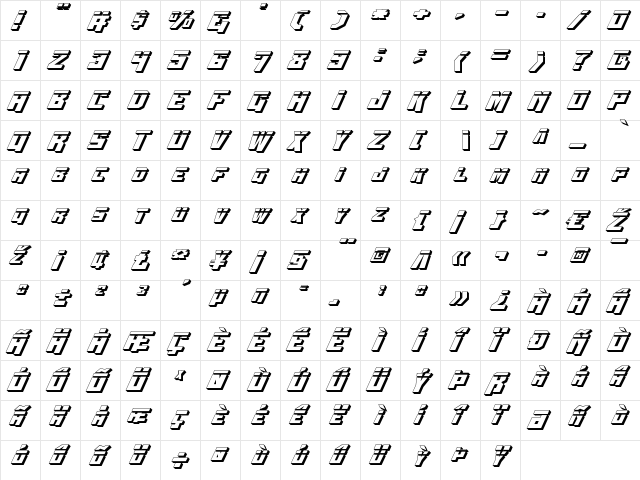
Whiskey Bravo Victor3D Laser Regular
| Designer | Dan Zadorozny |
Design Context for Whiskey Bravo Victor3D Laser Typeface
Whiskey Bravo Victor3D Laser is a composed and adaptable typeface that performs quietly and consistently across a wide range of design contexts.
Pro Tip: Use Whiskey Bravo Victor3D Laser in both headline and body roles to test its range before committing to a single application.